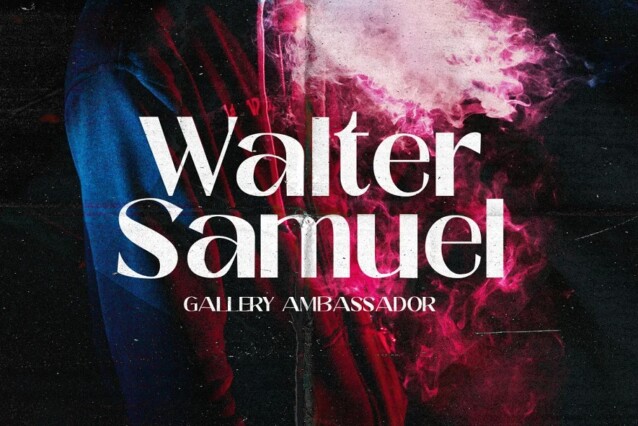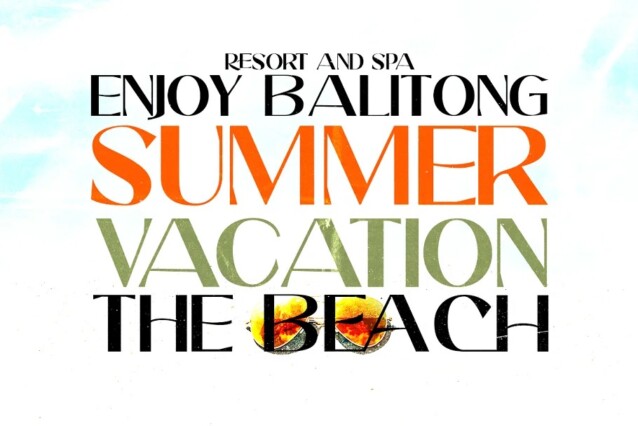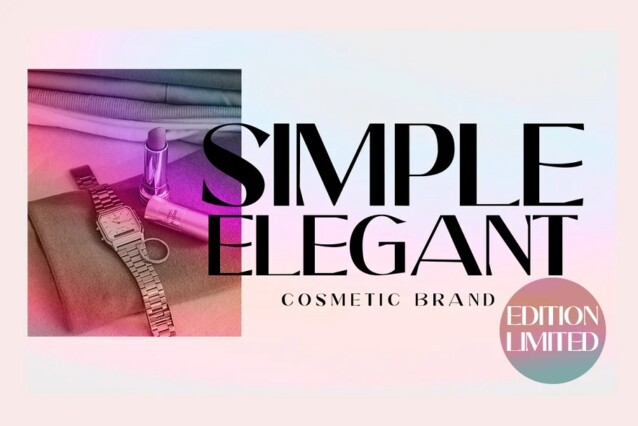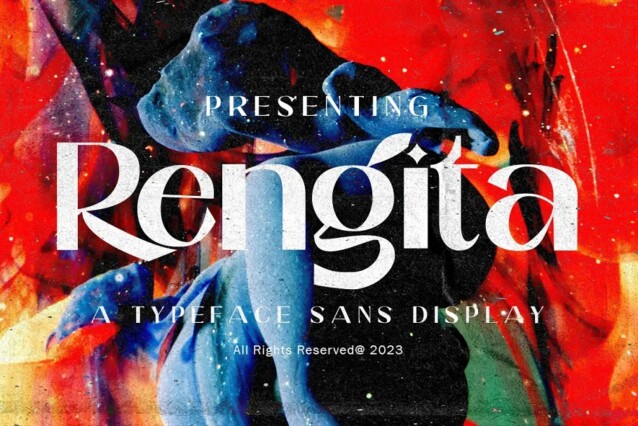
Rengita Font
Rengita Font is a sans-serif font from Gatype that bridges the realms of tradition and modernity with effortless finesse. This font was specially created for luxury themed projects, branding projects, Magazine, Social Media, Branding, Logos, website headers or simply as a stylish text overlay to any background image. and Many more need a Luxury touch.